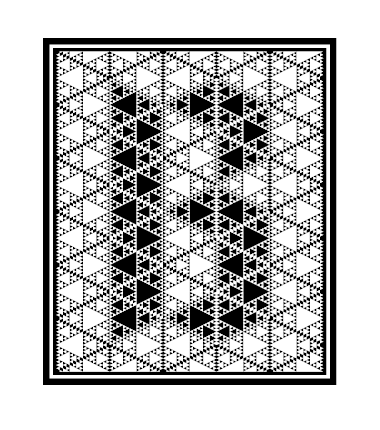
Sierpinski Black Initials
Cloned from Sierpinski White Initials by Frodo7.
Initials decorated by the same fractal pattern. A supplement to Sierpinski Black. A few alternative characters are placed to the lower case.
I thought to make something similar with my Amanuensis capitals, but never settled on one pattern (I foolishly thought I could even be able to come up with a different one for each letter!) which could preserve the letters’ shapes.
It goes without saying, I never even dreamt of one pattern that could actually merge with letters.
Absolutely stunning! I've tried to play with the sierpinski gasket myself (gasketed), it's a beautiful fractal and you've used it perfectly.
@riccard0: Sierpinski Dalmatian was a proof of concept, that the white and black patterns merged seamlessly.
Your Amanuensis is very beautiful. And simplicity is part of its beauty. I would only experiment with a separate version with a
fine/subtle pattern.
Numbers would be a very nice addition (I see them as gorgeous street numbers :-)
I see the fractals! An amazing set of glyphs :D